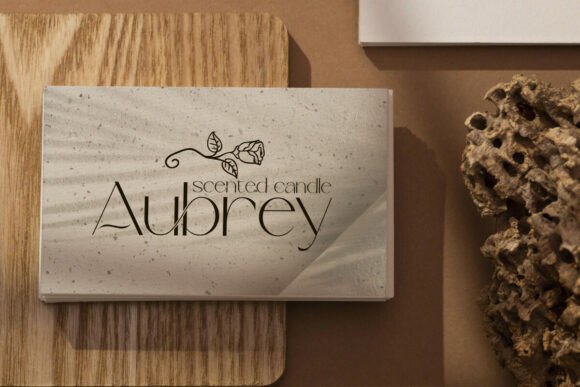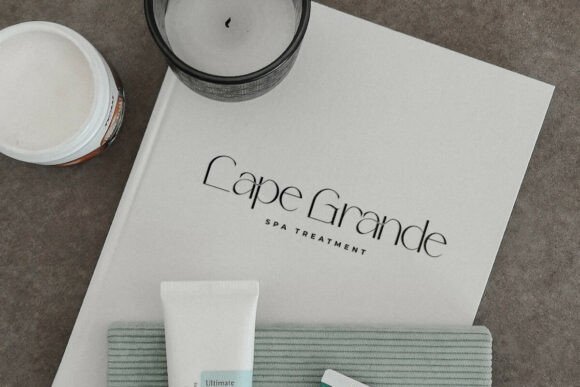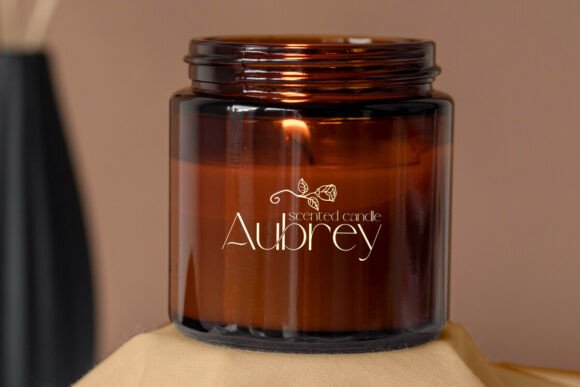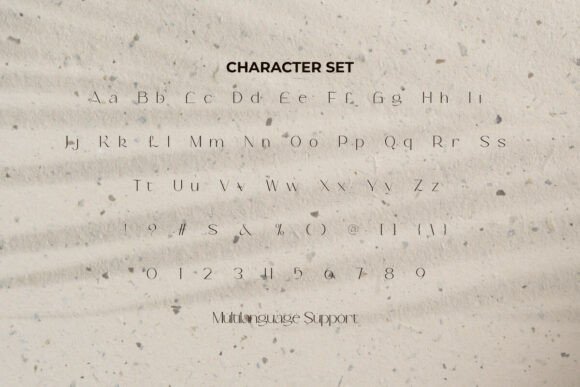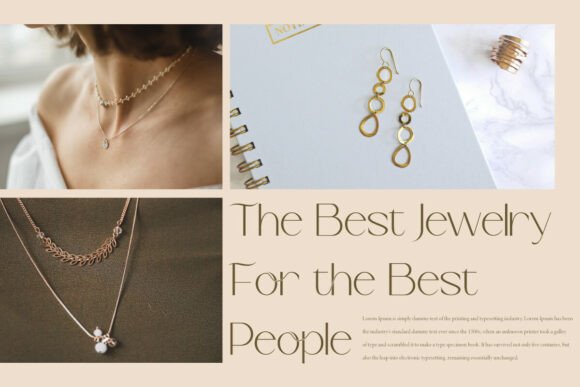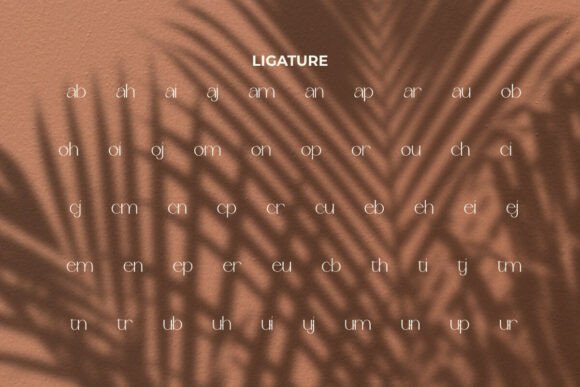
Cape Grande Font: Elevate Your Designs with Timeless Elegance and Modern Style
In the world of typography, a font can make or break a design. If you’re looking for a stylish and modern display font that exudes luxury and elegance, look no further than Cape Grande Font. This stunning font is designed to bring a touch of sophistication to any design, making it perfect for a wide range of applications.
The Perfect Blend of Timeless Elegance and Contemporary Style
Cape Grande Font seamlessly combines timeless elegance with contemporary style, making it an ideal choice for designers and crafters who want to create visually stunning designs. The font’s classic visuals are clean and sophisticated, while its modern twist adds a touch of freshness and creativity. This unique blend makes Cape Grande Font versatile and flexible, suitable for various business identities and design projects.
Cape Grande Font is a versatile font that can be used for a wide range of design projects, including:
• Business cards: Create a lasting impression with elegant and sophisticated business cards that reflect your brand’s personality.
• Cover designs: Add a touch of luxury to your book covers, magazine covers, or album covers with Cape Grande Font.
• Greeting cards: Create beautiful and heartfelt greeting cards for special occasions.
• Headers: Elevate your website headers, blog titles, or social media graphics with this stunning font.
• Invitations: Design elegant and sophisticated invitations for weddings, parties, or corporate events.
• Labels: Add a touch of class to your product labels, packaging, or branding materials.
• Logos: Create a memorable and impactful logo for your business or brand.
• Posters: Design eye-catching posters for advertising, promotion, or events.
• Printing and publishing: Use Cape Grande Font for printing and publishing projects, such as brochures, catalogs, or magazines.
• Quotes: Create inspiring and visually stunning quote graphics for social media or blogs.
• Screen printing: Use this font for screen printing projects, such as t-shirts, tote bags, or posters.
• Signage: Design elegant and easy-to-read signage for businesses, events, or exhibitions.
• Titles: Add a touch of sophistication to your movie titles, video titles, or presentation titles.
• Websites: Elevate your website’s typography with Cape Grande Font, perfect for headings, titles, or captions.
Authentic, Handmade Writing Feel
Cape Grande Font is designed to give the impression of authentic, handmade writing, making it perfect for brands that want to convey a sense of uniqueness and personality. The font’s stunning shape and elegant lines create a sense of craftsmanship, adding a touch of warmth and humanity to your designs.
Comprehensive Character Set
Cape Grande Font comes with a full set of:
• Uppercase and lowercase letters
• Numbers
• Punctuation marks
• Symbols
• Interlocking ligatures
The font’s comprehensive character set provides many options and variations for your final design, allowing you to experiment with different combinations and styles.
Perfect for Various Business Identities
Cape Grande Font is flexible and adaptable, making it suitable for various business identities, including:
• Beauty clinics: Add a touch of elegance to your branding and marketing materials.
• Botanists: Create a sophisticated and natural look for your brand with Cape Grande Font.
• Boutiques: Elevate your fashion brand with this stylish and modern font.
• Cosmetic brands: Convey luxury and sophistication with Cape Grande Font.
• Fashion designers: Use this font to create stunning and elegant branding materials.
• Florists: Add a touch of elegance to your branding and packaging with Cape Grande Font.
• Furniture and homeware: Create a sophisticated and stylish look for your brand.
• Interior designers: Use Cape Grande Font to convey elegance and refinement in your branding and marketing materials.
• Jewelry brands: Add a touch of luxury and sophistication to your branding and packaging.
• Restaurants: Create a warm and inviting atmosphere with Cape Grande Font.
• Skincare and spa salons: Convey elegance and refinement with this stunning font.
• Wedding planners: Use Cape Grande Font to create beautiful and elegant wedding branding materials.
In conclusion, Cape Grande Font is a versatile and stylish display font that can elevate your designs with its timeless elegance and modern style. With its comprehensive character set, authentic handmade writing feel, and flexibility in various business identities, this font is perfect for designers and crafters who want to create visually stunning designs that convey luxury, sophistication, and elegance.